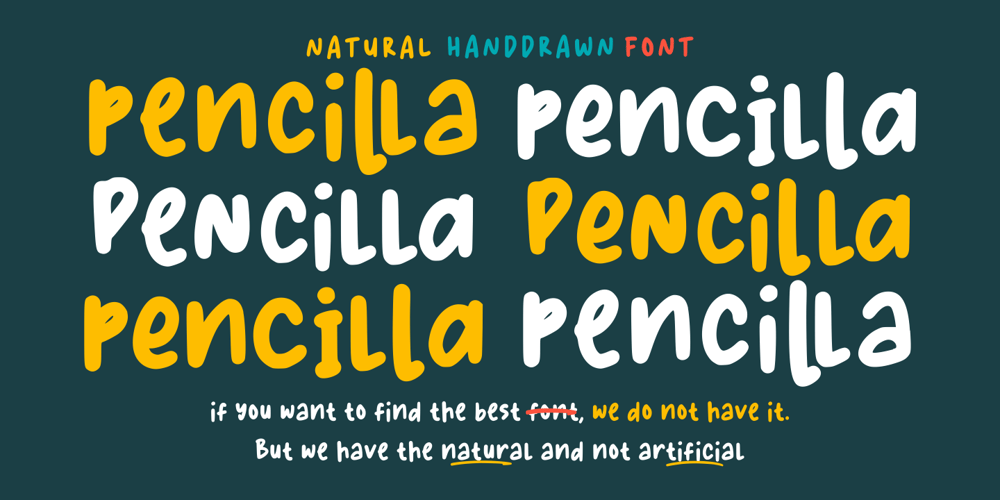
Pencilla
Pencilla font
Pencilla Font Family was designed by Good Java and published by Good Java Studio. Pencilla contains 2 styles and family package options. Pencilla – Natural Handwritten font is a natural & modern handwritten font. I’ts Perfect for logo, invitation, stationery, wedding designs, social media posts, advertisements, product packaging, product designs, label, photography, watermark, special events or anything. This font include : Pencilla OTF-TTF-WOFF, Ligatures, and also Multilingual support.